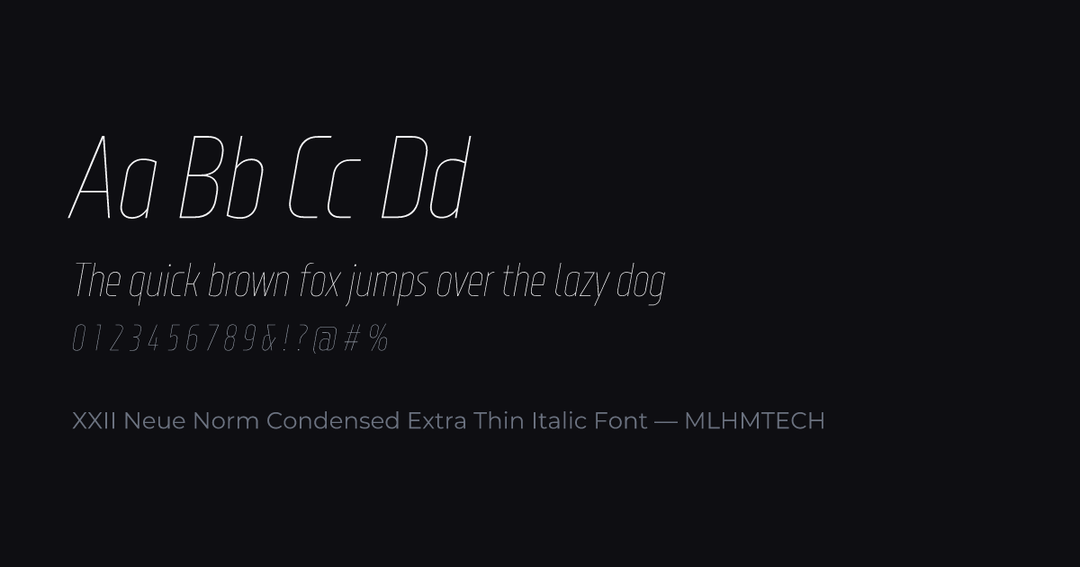
XXII Neue Norm Condensed Extra Thin Italic Font
A refined condensed sans-serif font with extra thin weight and italic style. Ideal for modern, high-fashion designs.
XXII Neue Norm Condensed Extra Thin Italic is a sophisticated typeface that combines a narrow, condensed structure with an ultra-light weight and elegant italic slant. Its clean lines and minimal aesthetic make it perfect for contemporary branding, editorial layouts, and fashion-forward designs.
This font adds a touch of refinement to any project, whether used for headlines, logos, or accent text. Its thin strokes demand attention while maintaining an airy, sophisticated feel. Works beautifully in large sizes for impactful statements.